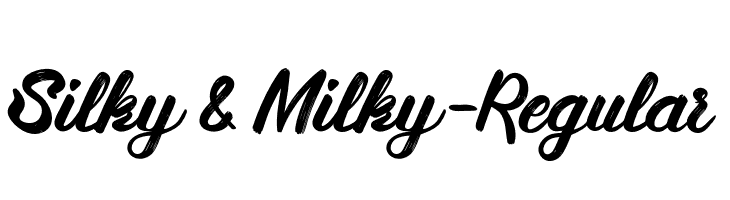
A bold, expressive script font with fluid, interconnected strokes and a brush-like texture.
A playful, handwritten font with dynamic, flowing letterforms.
A bold, playful font with rounded characters and a whimsical style.
A lively, handwritten script font with fluid, connected strokes.